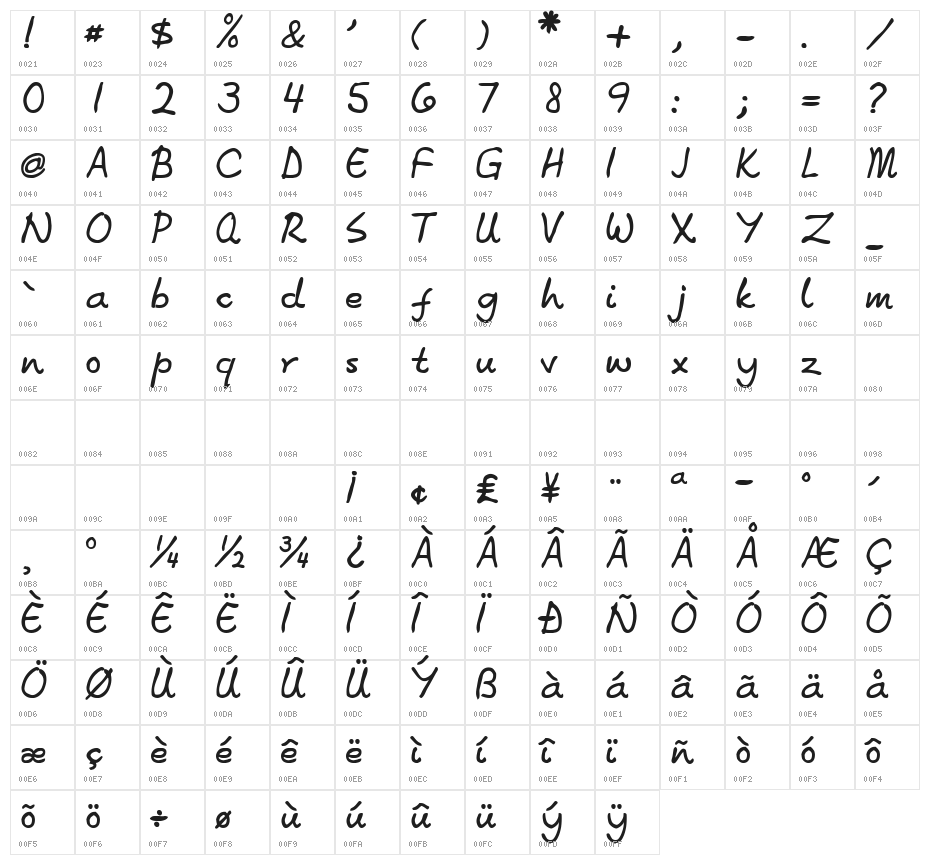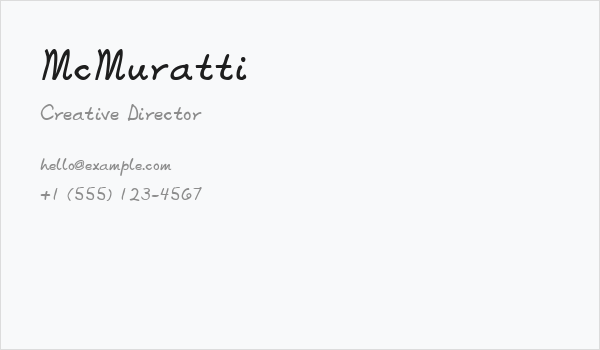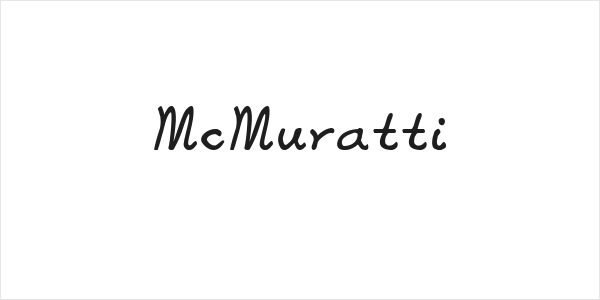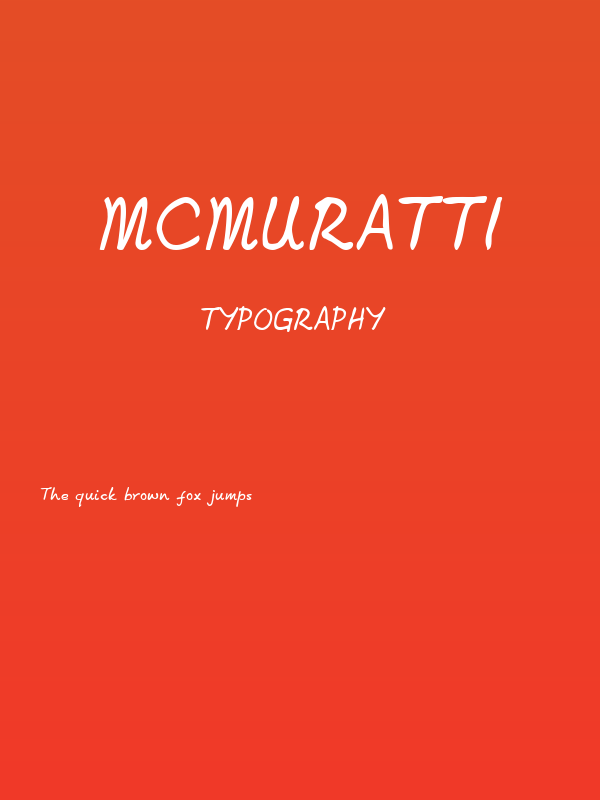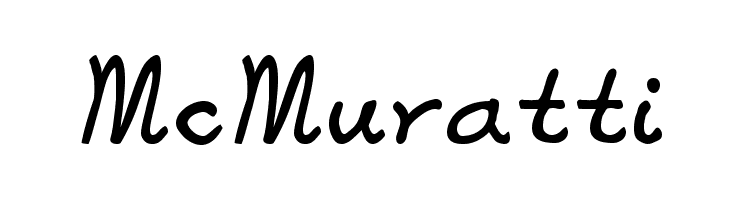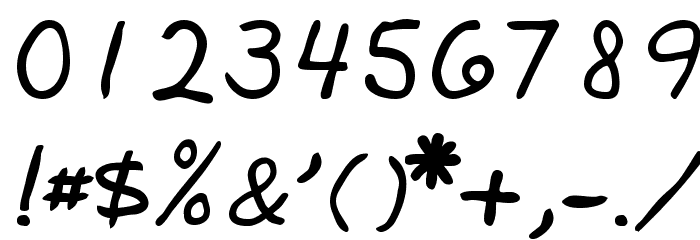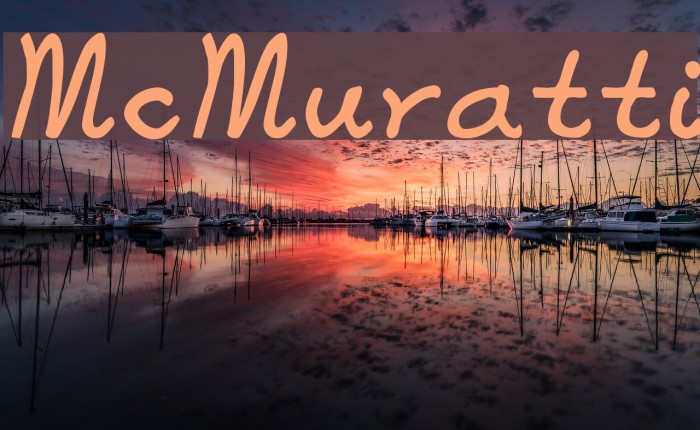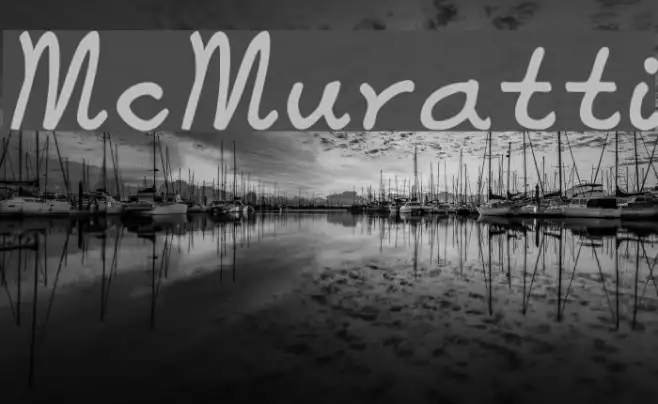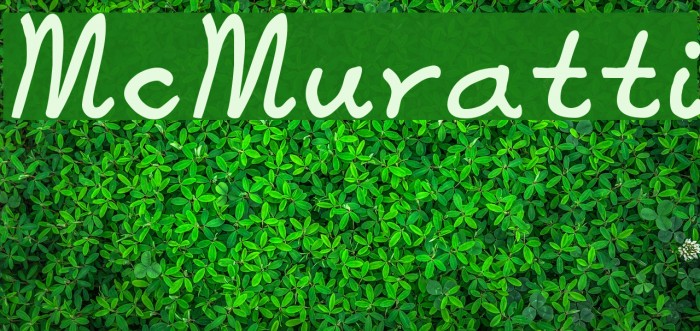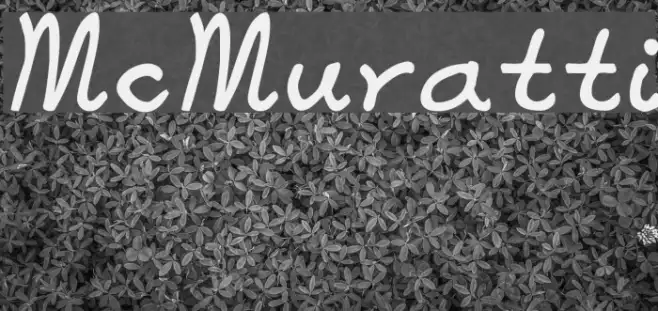
McMuratti Font
McMuratti Description
This font features a playful and casual handwritten style, characterized by its smooth, flowing curves and slightly irregular letterforms. The uppercase letters maintain a consistent height, while the lowercase letters exhibit a natural variation, adding to the informal aesthetic. The numerals are clear and legible, matching the overall style of the alphabet. Special characters are included, maintaining the same whimsical and approachable design. This font's organic feel makes it suitable for projects that require a personal touch.
| Overall Style | Casual |
| Use Case | Logos, Headlines, Informal Text |
| Proposed Projects | Ideal for greeting cards, invitations, personal branding, and casual blog headers. |